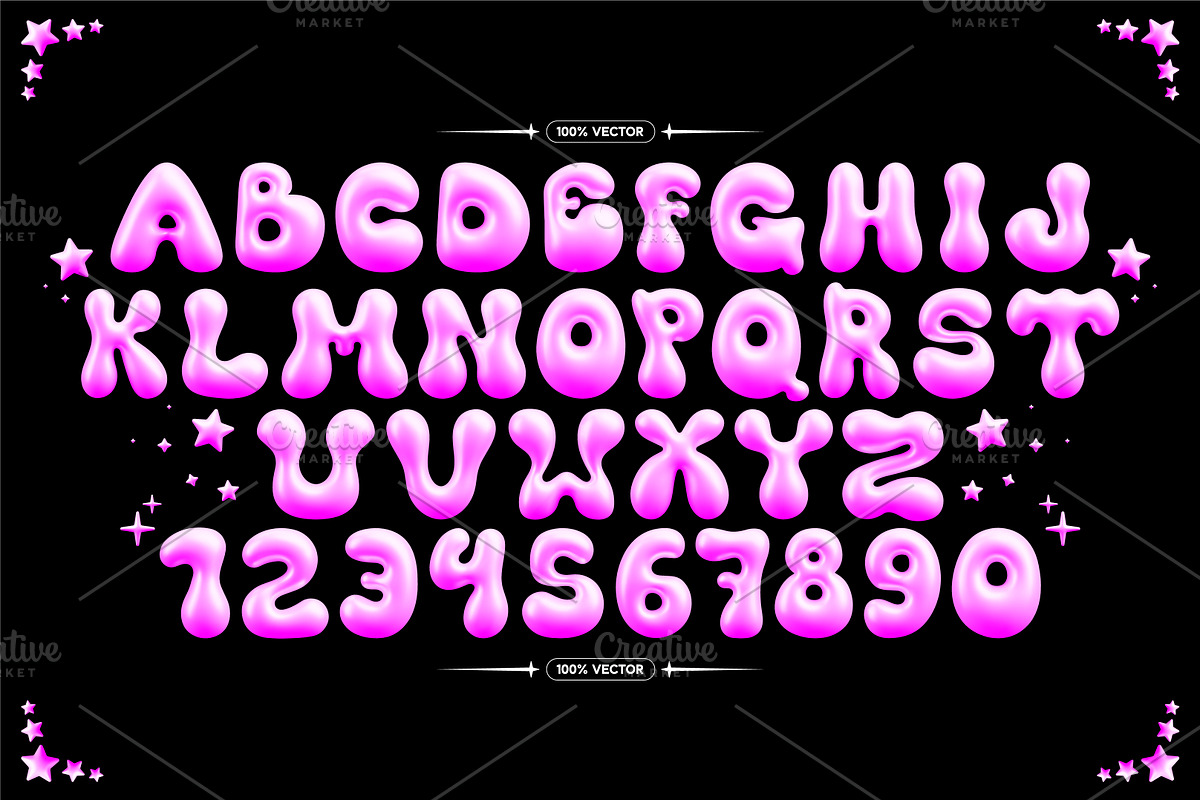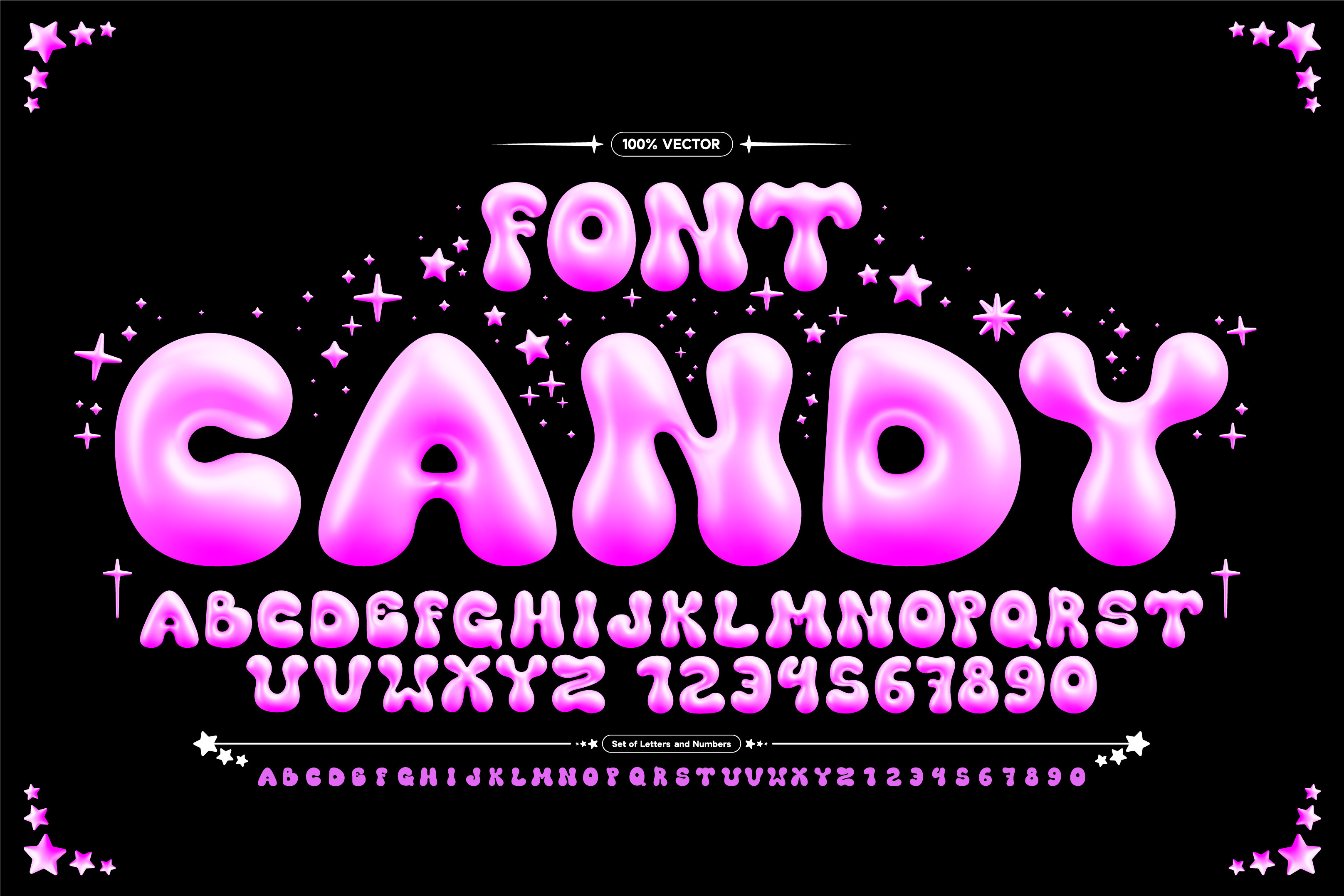
CANDY 3D BUBBLE FONT VECTOR
Glossy candy bubble font. Inflated alphabet, 3D pink ballon letters and numbers. Vector set + Flat font
I present to you a vector 3D font that, with its bright and expressive look, will add uniqueness to your designs. It’s perfect for creating memorable headlines, posters, logos, and any other projects where emphasis and volume are needed.